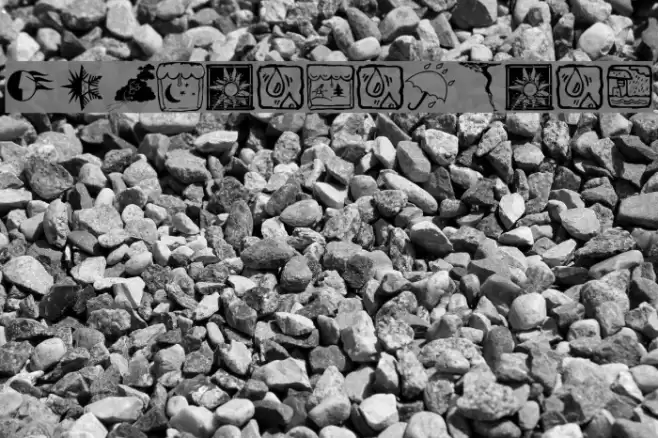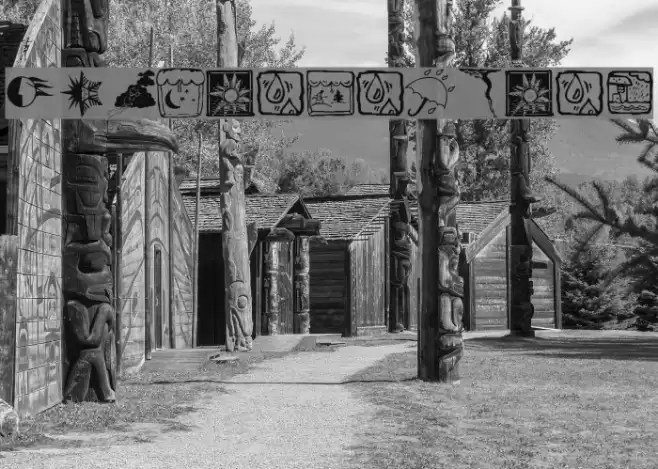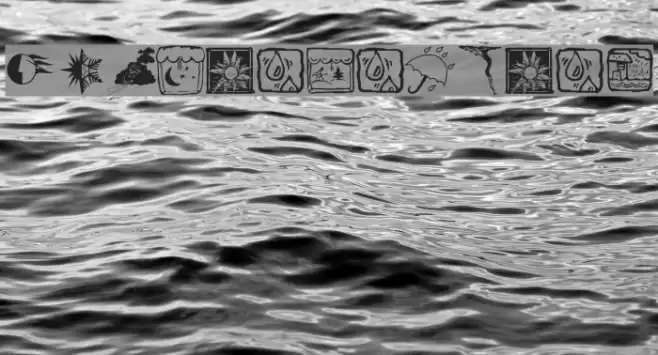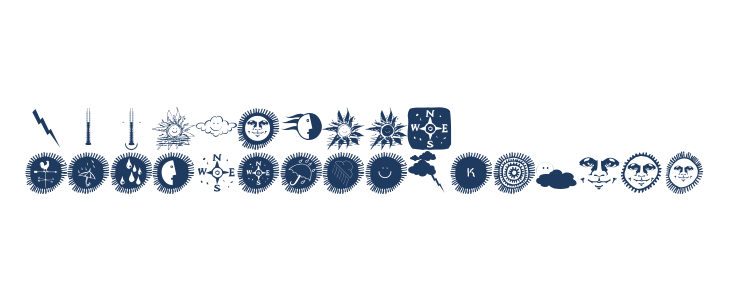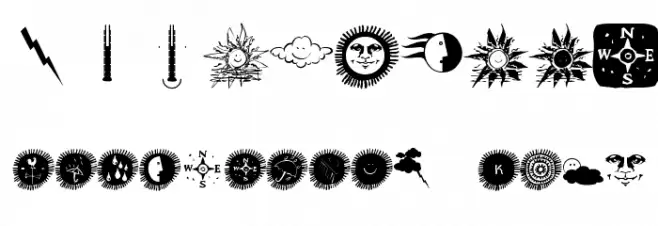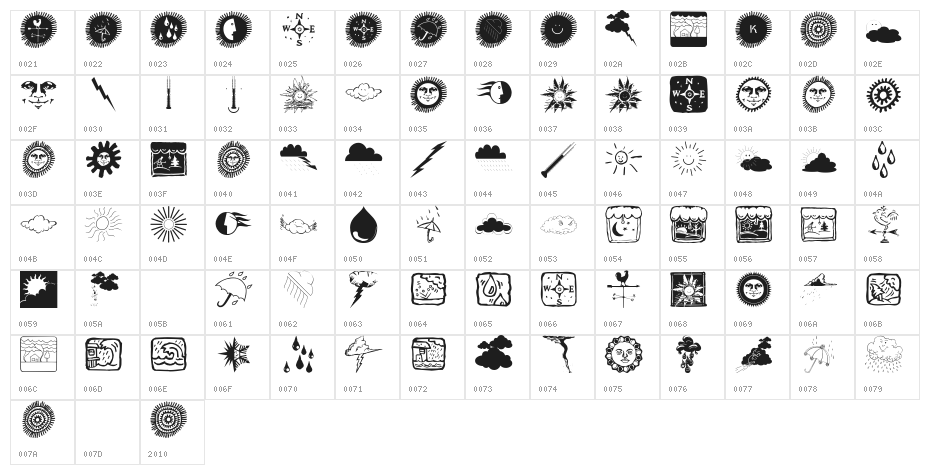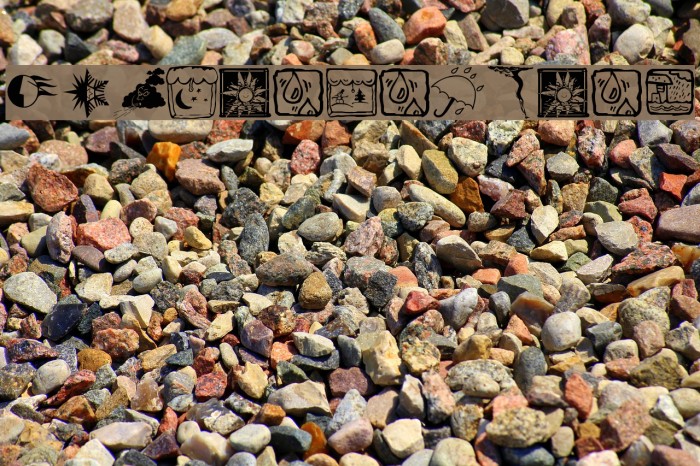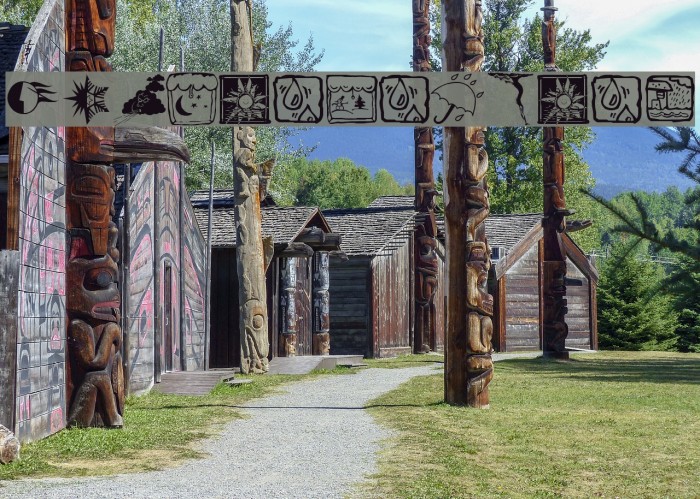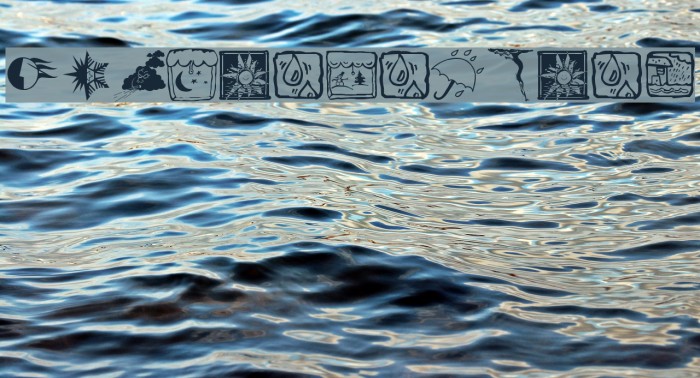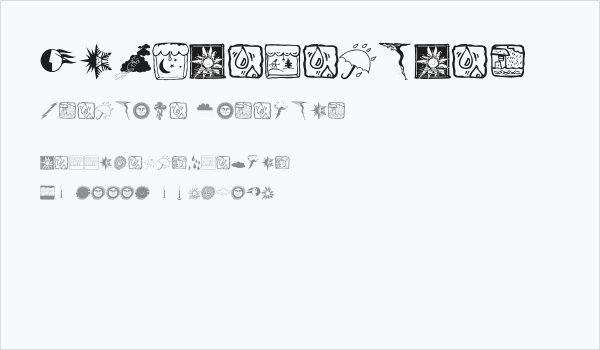
NowTheWeather Font
NowTheWeather Description
A decorative dingbat set featuring a wide variety of weather-themed illustrations, including clouds, sun, rain, lightning, compasses, and whimsical faces. Each character is represented by a unique, detailed icon rather than traditional alphanumeric glyphs.
A weather-themed decorative icon set with playful, illustrative symbols from Dingbats fonts.
- Proposed Projects: Weather apps, educational materials, infographics, greeting cards, themed posters, and children’s books.
- Overall Style: Decorative, Whimsical, Illustrative
- Use Case: Icons, Decorative elements, Themed graphics